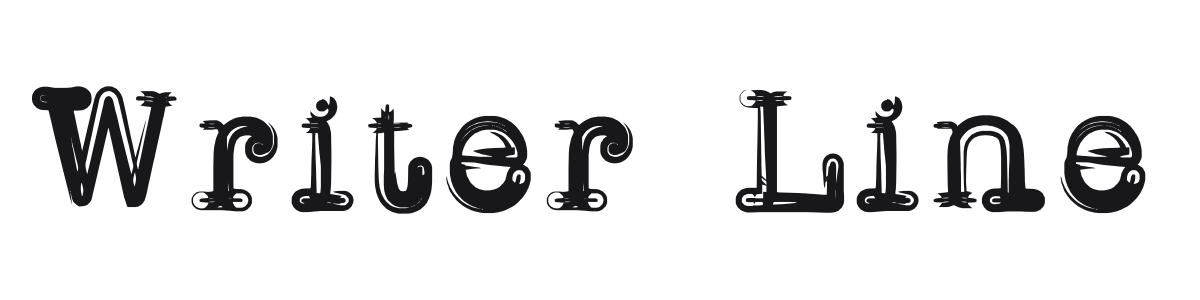
Writer Line
by Canale Studio, Inc.
Writer Line is a decorative display face from Canale Studio, Inc. with ornamental, curly letterforms that feel hand-drawn and slightly eccentric. There's a vintage quality to the linework, as if each character was pulled from a fanciful old book title page, giving it a whimsical personality that works well for headlines, invitations, and branding where quirky charm is the whole point.